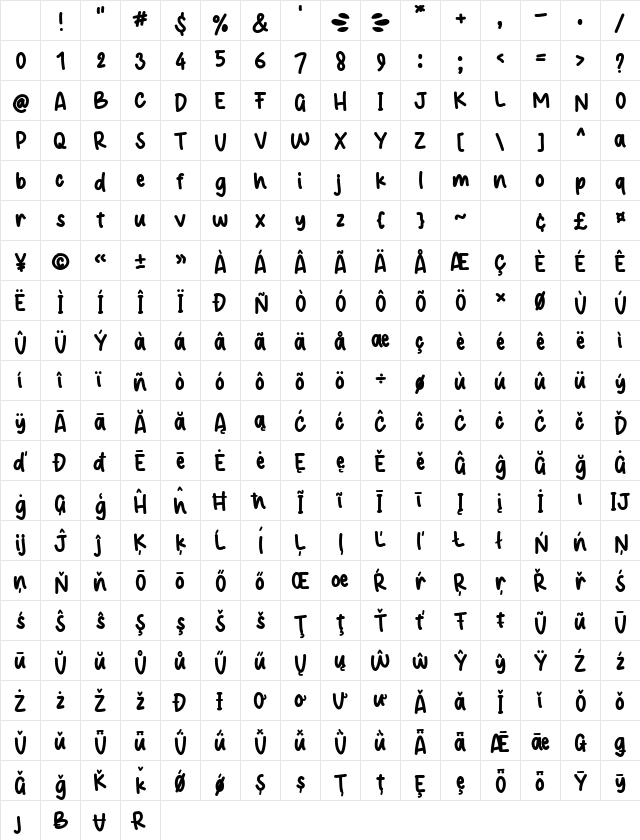
Complete Cheese Orange Regular glyph index. Displaying only characters natively supported by Cheese Orange Regular font.
Cheese Orange is a composed and adaptable typeface that performs quietly and consistently across a wide range of design contexts.